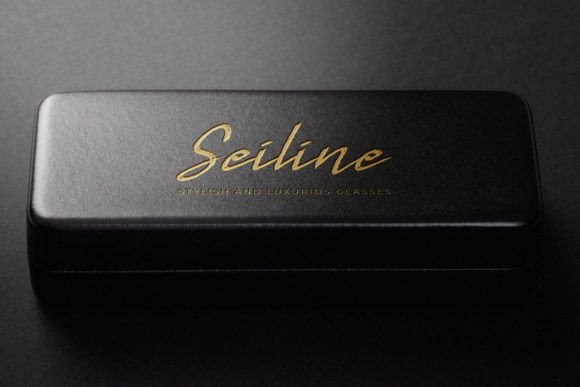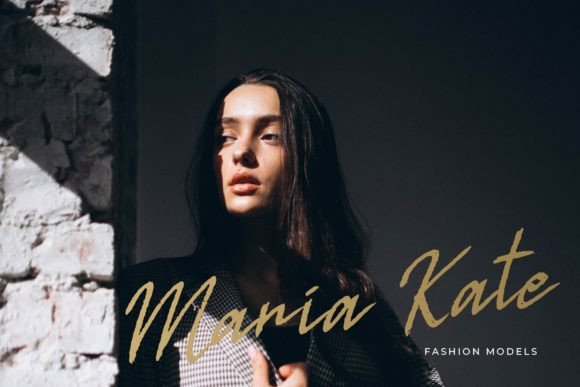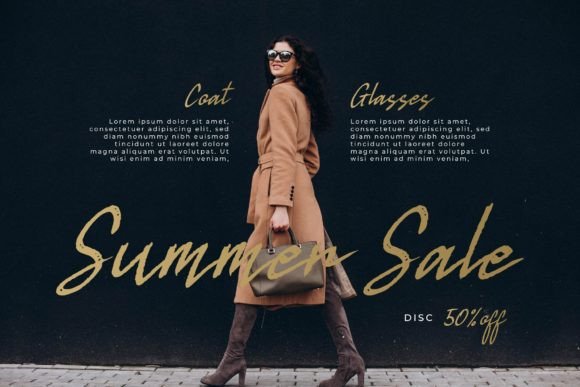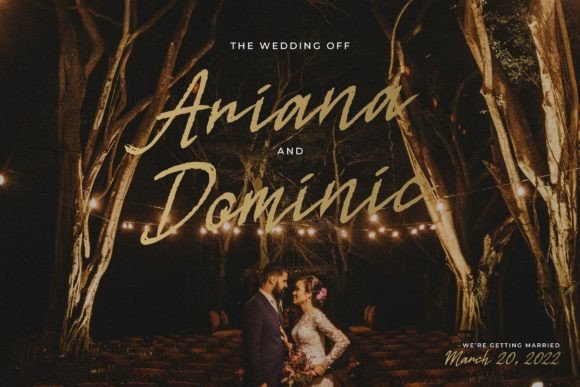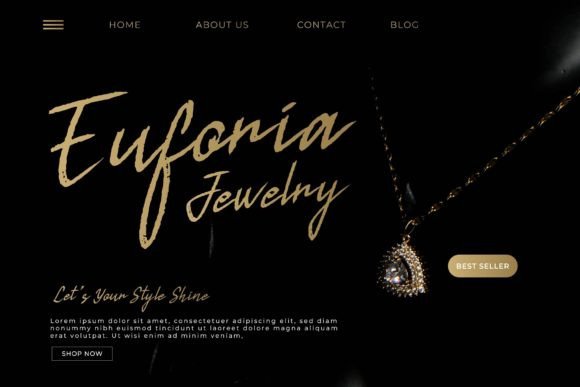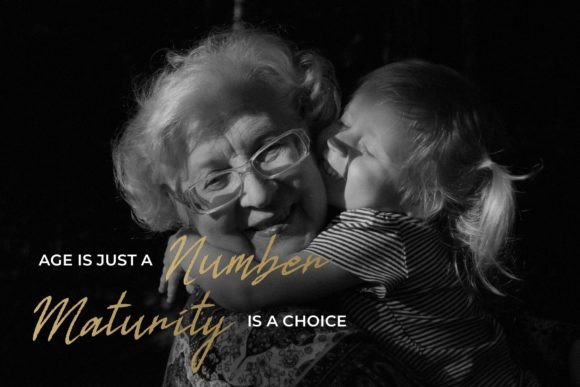
Introduction to Histogems Font
The moment of creative breakthrough – when the perfect design element falls into place and elevates your entire project. For many designers, that ‘aha’ moment comes with the discovery of the right font. And if you’re looking for a font that adds a touch of elegance and sophistication to your work, you’re in luck. Histogems Font is a stunning brush script that’s perfect for any creative project, from logos and branding to homeware designs and product packaging.
What sets Histogems Font apart is its high-quality design and versatility. Whether you’re working on a free download or a commercial project, this font is a valuable resource that’s sure to impress. With its transparent background and seamless integration, you can use it to create stunning visual effects that will take your designs to the next level.
Key Features of Histogems Font
- Unique, high-quality design elements with a transparent background, ideal for creative projects and design resources.
- Perfect for use in creative projects, such as infographics, posters, and social media graphics, where a unique and eye-catching design is essential.
- Design resource that can be easily customized and edited to fit the specific needs of your project, making it a valuable asset for designers and artists.
Honest Review: Histogems Font
I recently came across the Histogems Font, a free download that’s gained quite a following in the design community. As a designer, I was curious to see if it lived up to the hype.
- Unique and creative style that’s perfect for a specific type of project
- High-quality glyphs and lettering that make it a great addition to any design
- Transparent background option makes it easy to overlay on any design element
The Histogems Font is a great resource for designers looking to add a touch of elegance and sophistication to their creative project. Its high-quality design and transparent background make it a versatile choice for a variety of applications.
- Limited font styles and weights, which may not be ideal for complex typography projects
- Not suitable for body text, as it’s more of a decorative font
Overall, the Histogems Font is a solid choice for designers who want a unique and high-quality font for their creative project. While it has some limitations, it’s a great resource to have in your design arsenal.
Tips for Getting the Most Out of Histogems Font
Experiment with different font sizes and colors to create a visually appealing design. Use the transparent background feature to create a seamless design. Combine Histogems Font with other design resources to create a unique look.
Common Use Cases for Histogems Font
Use Histogems Font for creative projects such as graphics, logos, presentations, and reports. Its high quality and versatility make it perfect for any design need.
Does the Histogems Font have a transparent background?
No, the Histogems Font is a solid font and does not have a transparent background. However, you can use the font in combination with other design elements that have a transparent background to create a unique and eye-catching visual effect.